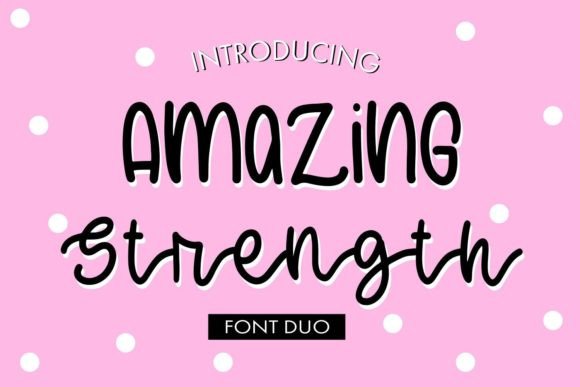
**Introducing 'Amazing Strength' - The Ultimate Handwritten Font Duo for Unforgettable Designs**
Indulge in the captivating charm of 'Amazing Strength,' an exceptional handwritten font duo that will ignite your creativity and transform your designs into masterpieces. This magnificent creation by freelingdesignhouse empowers you to express your unique style with grace and flair.
Prepare to be mesmerized by the whimsical dance of characters in the 'Amazing Strength' script font. Its playful curves and elegant strokes evoke a sense of carefree joy, perfect for adding a touch of whimsy to your projects. Let your imagination run wild as you craft enchanting invitations, personalized greeting cards, and heartfelt love letters that will leave a lasting impression.
But that's not all! The 'Amazing Strength' duo also features a complementary funky font, ready to add a playful twist to your designs. Its bold and energetic strokes are perfect for creating eye-catching headlines, quirky logos, and standout social media graphics. Together, these fonts form a harmonious symphony of style, allowing you to effortlessly create designs that captivate and inspire.
Whether you're a seasoned designer or just starting your creative journey, 'Amazing Strength' is the perfect font duo to elevate your projects to new heights. Its versatility knows no bounds, making it an essential tool for DIY enthusiasts, crafters, small business owners, and anyone looking to add a touch of magic to their creations.
**Captivating Features of 'Amazing Strength'**
* Enchanting script font with playful curves and elegant strokes
* Energetic funky font for eye-catching headlines and logos
* Perfect for DIY projects, invitations, greeting cards, and social media graphics
* Versatile and easy to use, suitable for all skill levels
* A must-have font duo for designers, crafters, and creative individuals